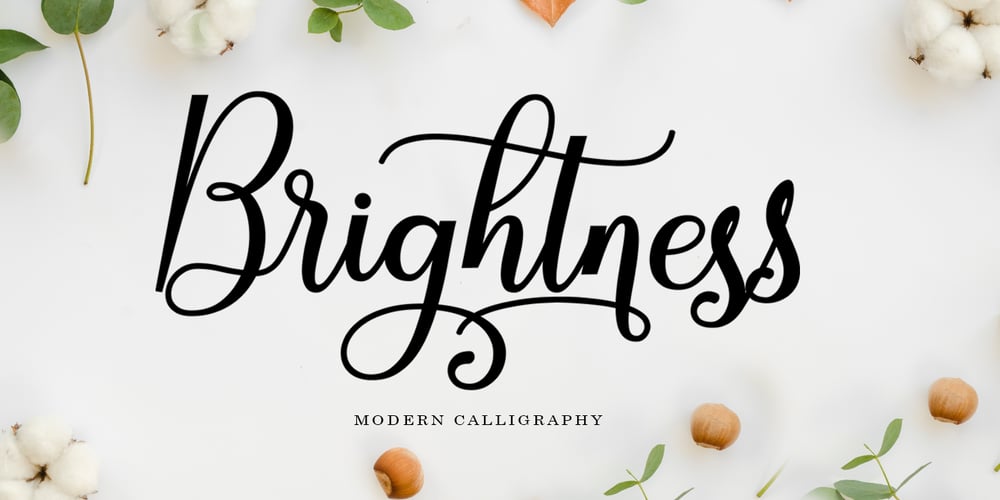
Brightness
Brightness font
Brightness Font Family was designed by Reza Haitami and published by Black Studio. Brightness contains 1 styles and family package options. Brightness Script – new, fresh, cute, catchy, funny calligraphy font with relatable heart. Perfect for greeting cards, branding materials, business cards, quotes, posters and more!Brightness Script – includes many alternative characters. Coded with Unicode PUA, which allows full access to all additional characters without having any special design software. Mac users can use Font Book. Windows users can use the Character Map to view and copy any of the additional characters to paste into your favorite text editor. For people who have opentype-capable software: Alternatives can be accessed by turning on the “Alternative” and “Ligature” buttons on Photoshop’s Character panel, or via any software with a glyph panel, eg. Adobe Illustrator, Photoshop CC, Inkscape.Thank you for purchasing!